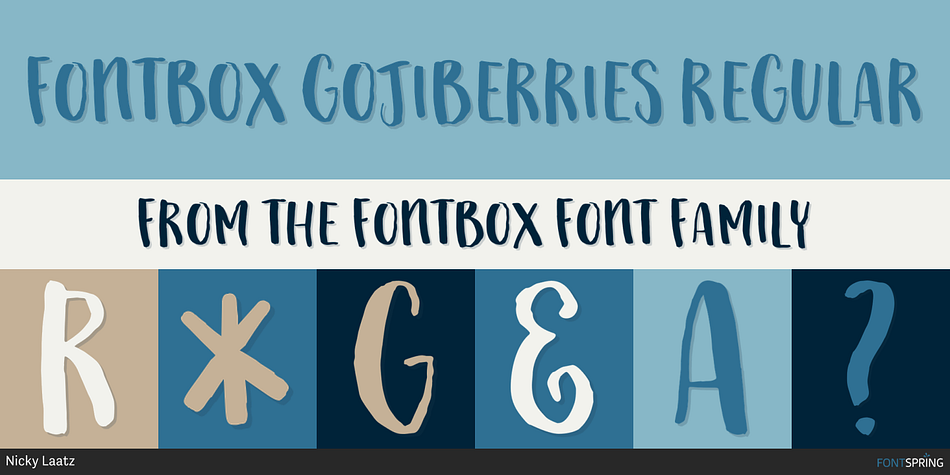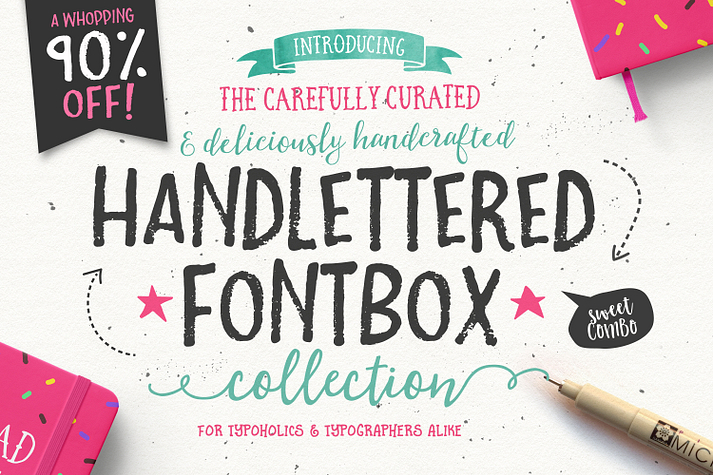
Fontbox Gojiberries Regular
Fontbox is a brush display font family. This typeface has twenty-four styles and was published by Nicky Laatz.
Introducing The Carefully Curated Hand-Lettered Fontbox- with bonuses! !  A fontastic set of carefully-paired, handcrafted fonts, designed to work together in harmony to create awesome hand-lettered typographic designs. As a supersweet bonus you get Twelve Free Premade Logo Templates AND 180 freshly added Illustrations to help you create designs similar to those show in the previews :)
• Biscuit Base Script : A playful yet neat brush script with a bouncy baseline, and a bold presence.
• Boathouse Script : An elegant Duo Script - one hollow, one solid, a off kilter script with thin and thick lines.
• Deliciously Script : A Calligraphy Script, with fine imperfections and sharp edges and a wide gait.
• Gojiberries:  An All-uppercase thick-edged brush font with a care-free character.
• Harelybuck Script : A Rough Dry Brush Script , with a casual character, but fancy attitude.
• Jeronimo Typeface : A dry-edged marker font, with a playful baseline - in two variants , one more playful that the other.
• Jolly Sailor : An old-style’ Tattoed Sailor’ style font , with imperfect inky edges, with a bold version too.
• Loveluck Script : A little beauty - a fine, smooth monoline script , with playful curvature and delightful end swashes. Included with a thicker brush version for when required.
• Lemonade Stand : A juicy script with a delicious vibe and rounded edges - available in an italic version also.
• Maraschino Typeface :  A playful Serif font with messy lines, one hollow one solid.
• Masquerade : A dinky serif font with a cute disposition, in regular and bold.
• Novascotia : A thicker inky typeface with a smooth disposition, looks great in all caps too.
• Peaches & Pistachio : A casual handwritten font, with personal character, and a relaxed mentality.
• Shoestrings : A delightfully playful uppercase script with wistful connections and inky edges, in a tall and short version.